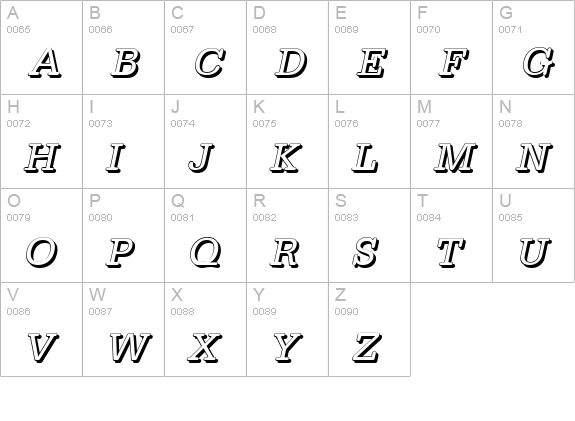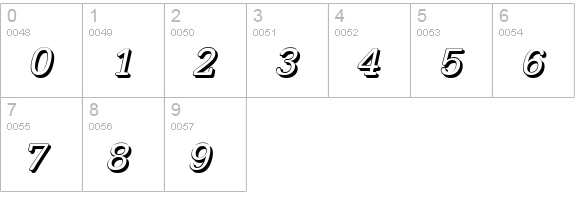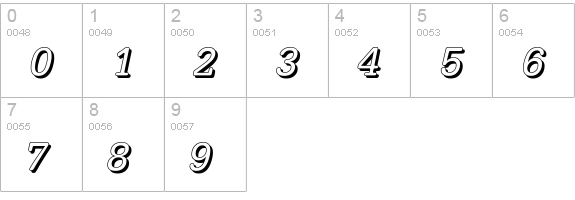
TypewriterSh-Italic Font Details
TypewriterSh-Italic is a distinctive, italic variant in the TypewriterSh typeface family \xE2\x80\x94 well suited to design and typography projects.
Introducing TypewriterSh-Italic font, a stylish and sophisticated typeface perfect for adding a touch of elegance to your projects. This italicized version of the classic TypewriterSh font exudes a sense of creativity and flair. The sleek and sleek design of this font makes it ideal for various design projects, from branding to editorial design. What's more, TypewriterSh-Italic font is available for free download at FontsMarket.com. So, whether you're a designer looking to elevate your work or someone who simply appreciates beautiful typography, this font is the perfect choice for you. Download TypewriterSh-Italic today and add a touch of class to your designs!